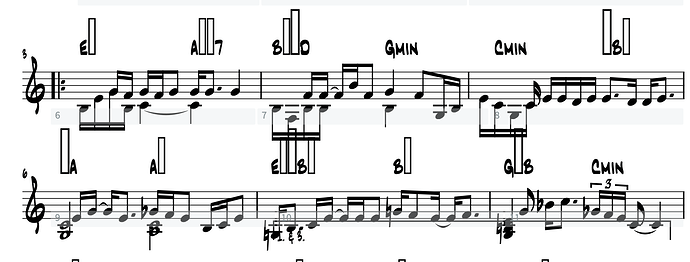
Good day community members. I use Dorico 5 on 2 Mac iOS computers. On system “A” all is fine, on system “B” when I open my project I get odd characters as shown below. It seems that there are missing fonts. Any ideas on how to correct this? Is it even worth the effort or should I just select another font and move on? I am just curious. Thanks for any input here. Below is what I am seeing when I select Jazz Chord for Chord Symbols Music Text Font.
Dorico requires a SMuFL font for this, and Jazz Cord is not a SMuFL font. Actually, none of the MakeMusic fonts are fully compatible with Dorico, but Finale Jazz is reasonably close for chord symbols provided you set your Engraving Options / Chord Symbols / Design / Scale Factor settings to 76% or higher. (It doesn’t contain the smaller accidentals in the correct location that Dorico requires for 75% or lower.)
Thank you, Fred. Is there a SMuFL font that you can recommend that would avoid me having to deal with this?
Petaluma is the “hand copied” font that ships with Dorico so it’s SMuFL-compatible. For a bit of an additional expense, Norfonts makes quite a few different fonts that are all compatible as well, and can give you some different looks.